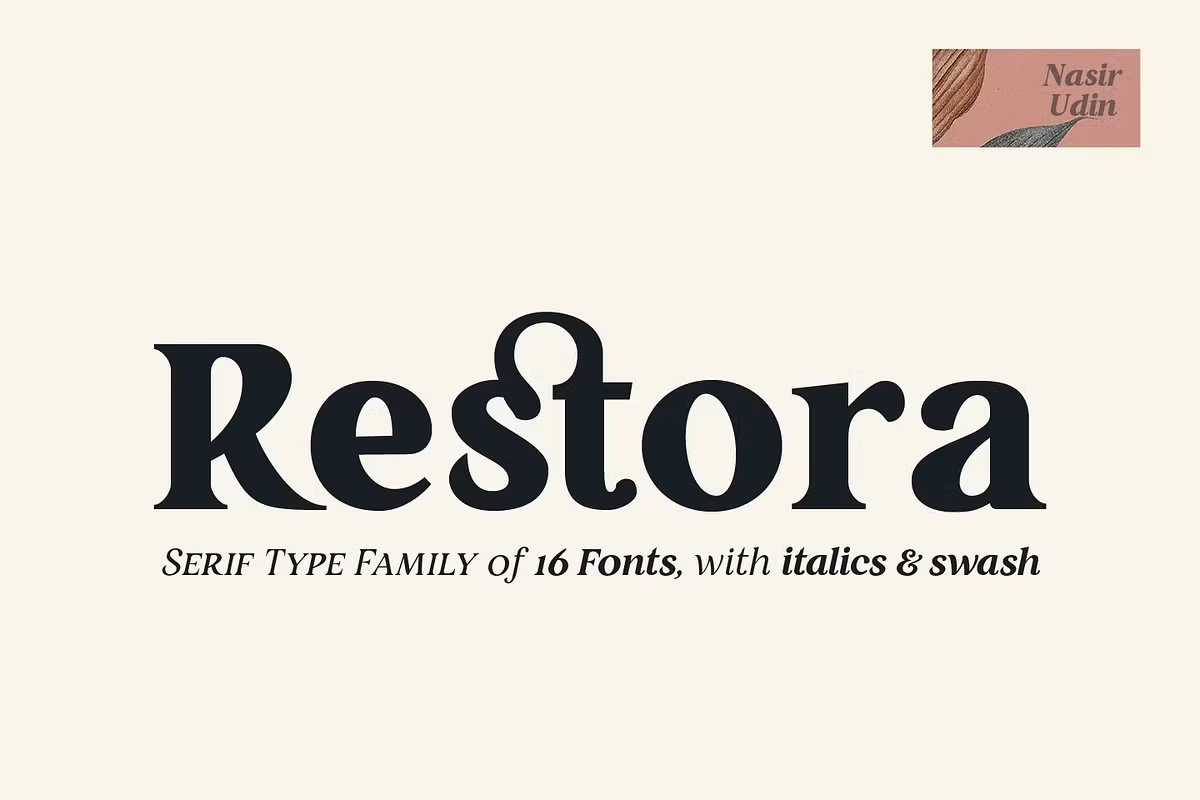
Restora – 16 Fonts Free Download is a sophisticated serif font family that blends traditional beauty with modern versatility. Please note: you must purchase this font for commercial use, but you can test it through a free download. With 16 finely crafted styles ranging from light to bold, including italics, Restora is perfect for editorial layouts, luxury branding, book covers, packaging, and elegant web design.
This comprehensive type family offers the flexibility to create rich typographic hierarchies while maintaining a cohesive visual identity. Whether you're designing a refined logo or a classy magazine spread, Restora – 16 Fonts Free Download provides timeless elegance and high readability. It’s fully compatible with Adobe Illustrator, Photoshop, Canva, and other leading design tools. Download it today for personal use and unlock the full potential of your typography with the refined sophistication of Restora.